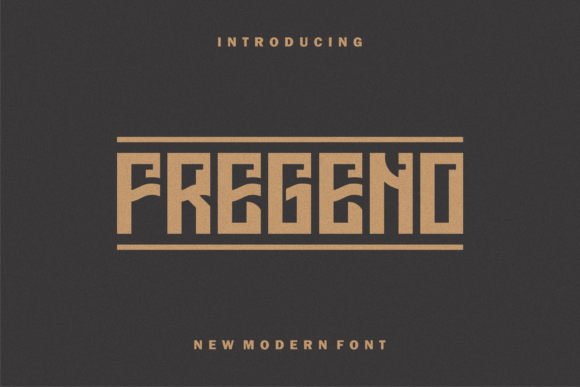
How Fregeno Transformed My Small Business Brand Identity
I remember the exact moment I realized my small business needed a typography upgrade. I was sitting at my kitchen table, squinting at a proof for a new product label. The design felt flat. The words looked generic. Nothing about it whispered elegant or memorable. I knew my product was good, but the packaging was not doing it any favors. That is when I started searching for a typeface that could carry the weight of my brand vision. And that is how I found Fregeno.
Fregeno is a modern sans serif font that manages to feel both classy and approachable. It does not shout for attention, but it does not fade into the background either. For a small business owner like me, that balance is everything. I need my brand to look polished without feeling cold or corporate. Fregeno delivers exactly that kind of warmth with a clean, sophisticated edge.
The Moment I Knew I Needed a Better Font
It all started with a simple thank-you card. I run a small skincare line, and I wanted something special to slip into each order. I tried designing the card with a free font I had used for months. It looked fine on my laptop screen, but when I printed it on soft cream paper, the letters felt thin and lifeless. The sans serif font I had been using lacked personality. It did not reflect the care I put into my products.
I asked a friend who runs a boutique bakery about her branding. She told me she had recently switched all her labels to a premium font that made her packaging look like it belonged in a high-end shop. That conversation stuck with me. I realized that typography is not just about words on a page. It is the voice of your brand. And my brand was whispering when it should have been speaking with quiet confidence.
Why Fregeno Felt Different from Other Sans Serif Fonts
There are hundreds of sans serif fonts out there. Some are too rigid. Others are too playful for a professional brand. Fregeno sits beautifully in the middle. Its letterforms are clean and modern, but there is a softness to the curves that makes it feel refined. When I first tested it on my product labels, I noticed how the letters sat comfortably together. The spacing felt natural, not cramped or stretched.
For a business owner who is not a designer, choosing a font can feel overwhelming. But Fregeno made the decision easy. It has a timeless quality that works across different materials. Whether I am printing on kraft paper labels or designing a digital banner for my online shop, the font keeps its character. It looks like it belongs to my brand, not like I borrowed it from a generic template library.
Using Fregeno on Product Labels and Packaging
My skincare line includes small batch lotions and balms. The labels are simple, but they need to communicate trust and quality. I use Fregeno for the product names and key ingredients. The font is highly readable even at smaller sizes, which is crucial for ingredient lists and directions. Customers have mentioned that the packaging feels more premium now. One person told me the font made the product look like something you would find at a boutique spa.
If you sell handmade candles, soaps, or food products, Fregeno works beautifully on labels. It has enough presence to stand out on a crowded shelf but stays elegant enough to feel personal. I tested it on a mockup for a candle jar, and the way the letters caught the light on the glass was stunning. The font does not fight with the product. It complements it.
Bringing Consistency to Social Media and Online Graphics
Before Fregeno, my Instagram feed was a mix of different fonts. Some posts used a script style, others used a bold display font. My brand looked disjointed. Once I committed to Fregeno as my primary display font for social media graphics, everything started to feel cohesive. I use it for quote cards, product announcements, and promotional banners. The consistent look helps customers recognize my content instantly as they scroll.
Fregeno also works well on website banners and online shop headers. It keeps the text crisp on mobile screens, which is where most of my traffic comes from. If you sell on platforms like Etsy or Shopify, using a consistent typeface across your shop graphics can make a huge difference in how professional your storefront feels. I have noticed more engagement on posts since I made the switch, and I believe the visual consistency plays a part.
Logos, Business Cards, and the Little Details
I redesigned my logo using Fregeno, and it instantly felt more like me. The font has a natural elegance that works for a standalone wordmark. I paired it with a subtle leaf icon, but the font holds its own. For logo design, Fregeno is excellent because it does not rely on heavy ornamentation. It is clean enough to be versatile but distinctive enough to be memorable.
Business cards were another revelation. I printed a batch with Fregeno for my name and tagline. The cards felt modern and understated. I handed one to a local shop owner, and she commented on how nice the typography looked. That small compliment reminded me that people notice details. A well-chosen font can open doors because it signals that you care about quality.
Whether you are labeling a batch of handmade soap, designing a café menu, or putting the finishing touches on your online store, Fregeno offers the elegance and clarity that small brands need to stand out with grace. It helped me transform my everyday business materials into something I am genuinely proud to share. And I have a feeling it can do the same for you.